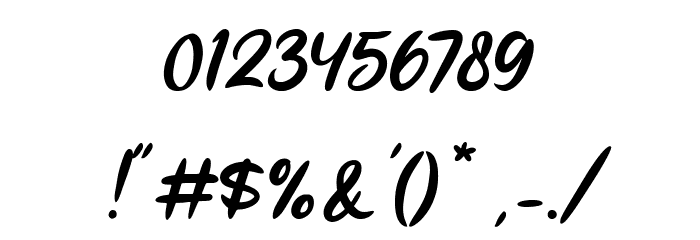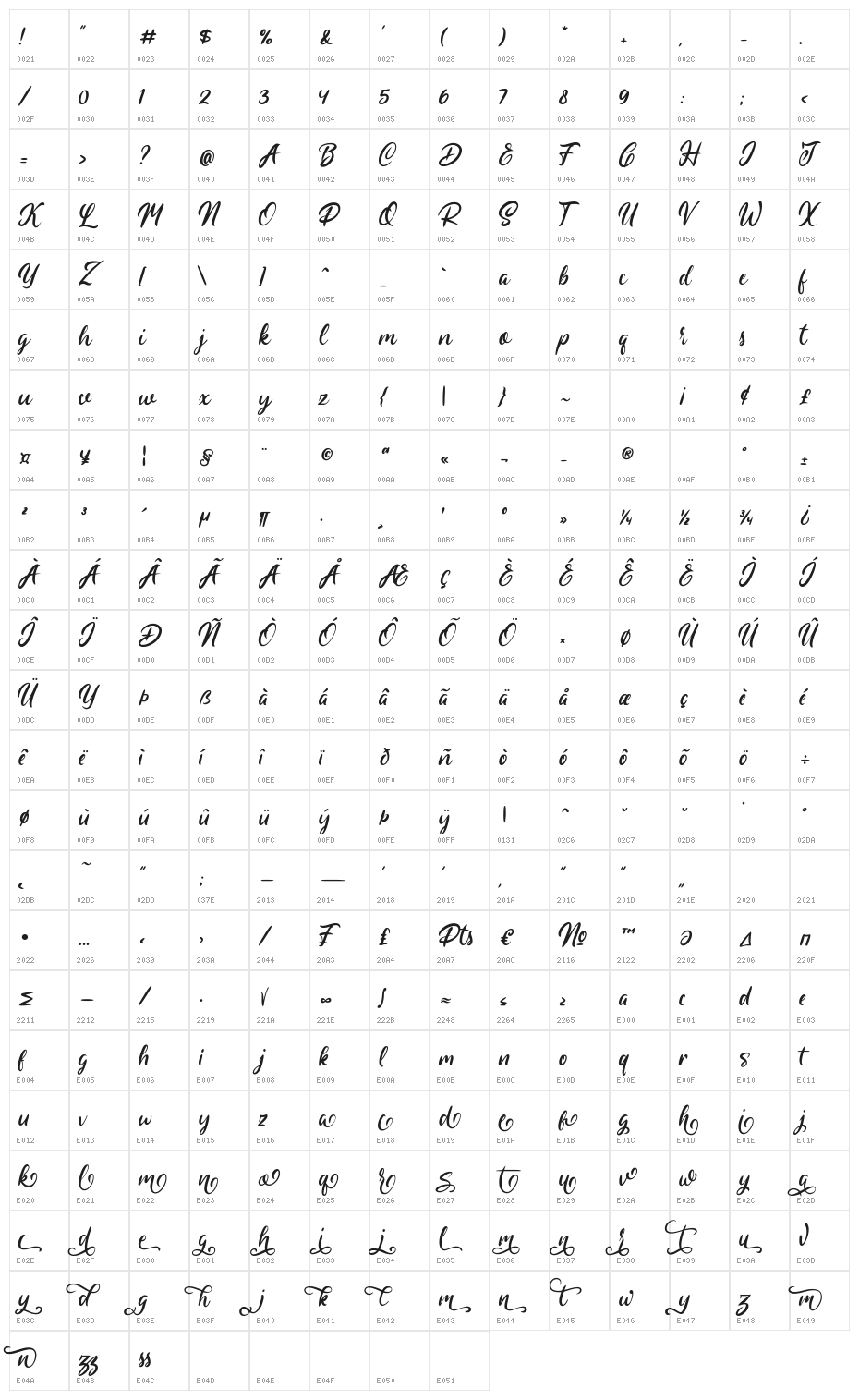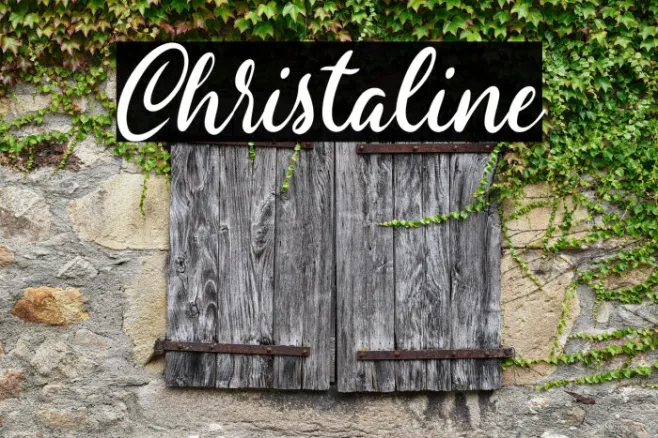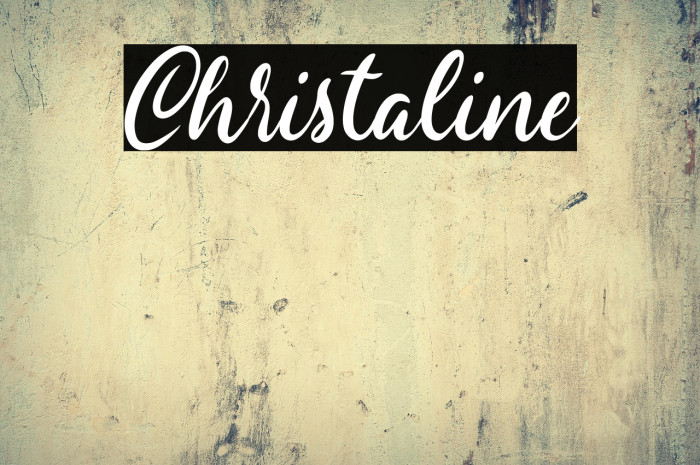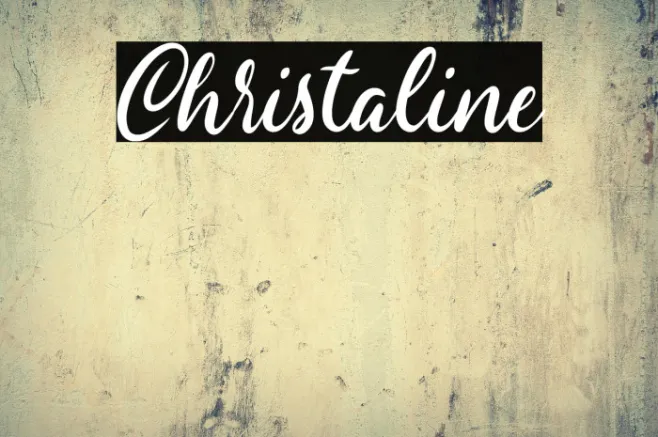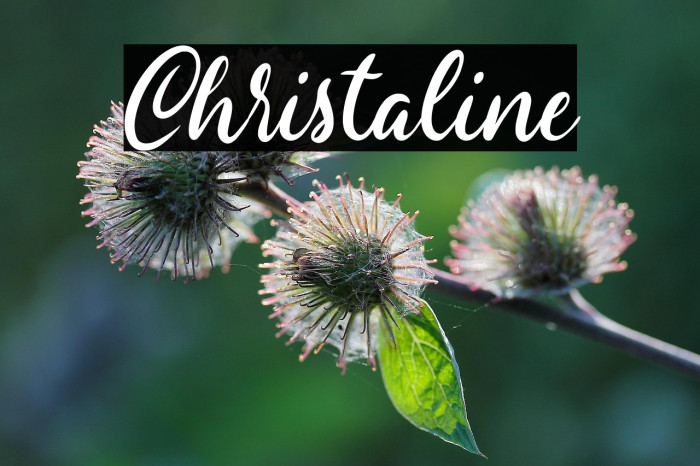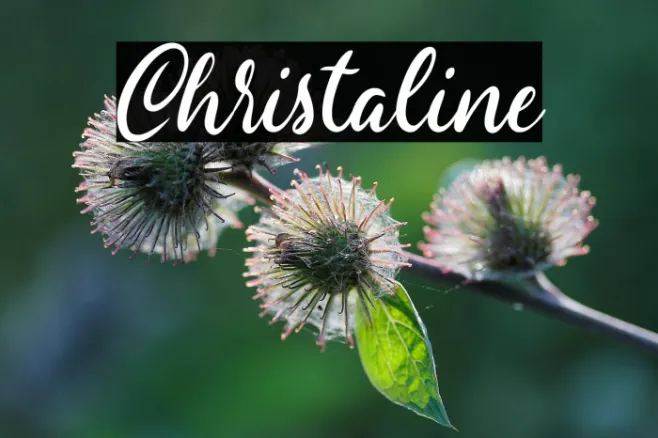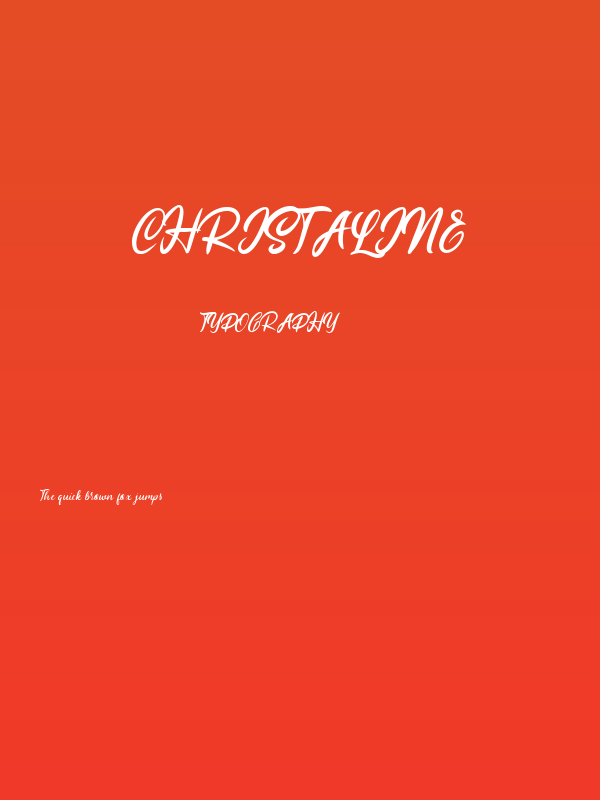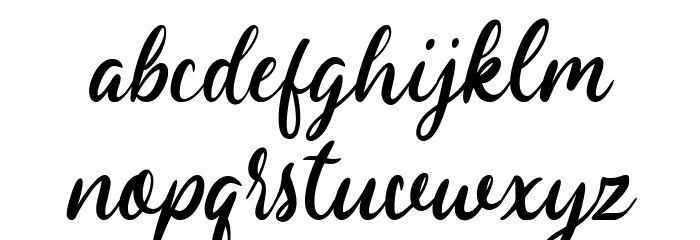
Christaline Font
Christaline Description
This elegant script font features a flowing, cursive style with smooth, connected letters that mimic the fluidity of handwriting. The uppercase letters are bold and sweeping, with dramatic flourishes that add a touch of sophistication. The lowercase letters maintain a consistent slant, enhancing the overall graceful appearance. Numbers and special characters are designed to complement the alphabet, maintaining the same stylish curves and loops. This font is perfect for adding a personal, artistic touch to any design, making it ideal for invitations, branding, and decorative projects.